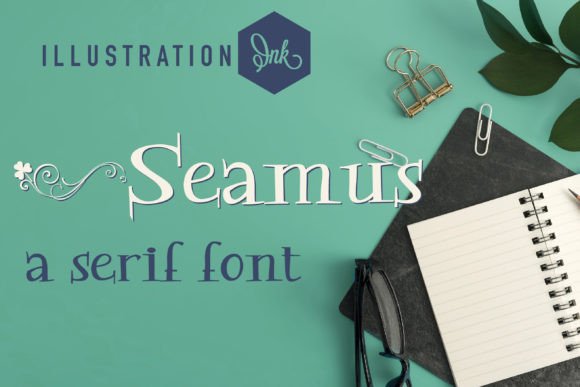
Step into a world of Celtic charm and luck with Seamus, the St. Patrick's Day font sensation that will captivate your designs with its whimsical strokes and playful characters. Experience the beauty of hand-crafted typography with Seamus, a serif wonder born from the creative genius of Illustration Ink.
Immerse yourself in the enchanting curves and intricate details of Seamus, where each letter dances with a unique personality. The elongated serifs, like delicate vines, add a touch of elegance and visual interest to your creations, making them stand out from the ordinary.
Discover the hidden magic of Seamus through its special glyphs, where the greater than and less than symbols transform into swirly shamrocks, adding a dash of Irish cheer to your designs. Let your words bloom with luck and fortune as you incorporate these charming shamrocks into your projects.
Whether you're creating festive St. Patrick's Day invitations, designing eye-catching posters for Irish pubs, or simply adding a touch of Celtic flair to your digital projects, Seamus will be your trusted companion, bringing a smile to the faces of your audience.
Embrace the spirit of Seamus and let its whimsical charm infuse your designs with a magic that will capture hearts and spread joy wherever it's seen. Download Seamus today and embark on a creative journey filled with luck, laughter, and unforgettable designs.